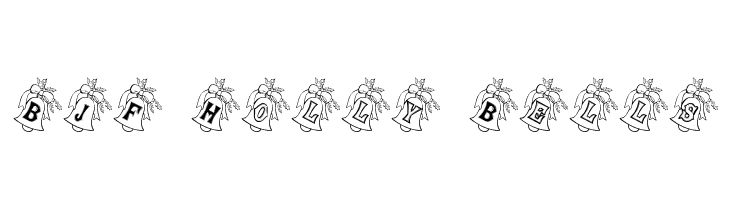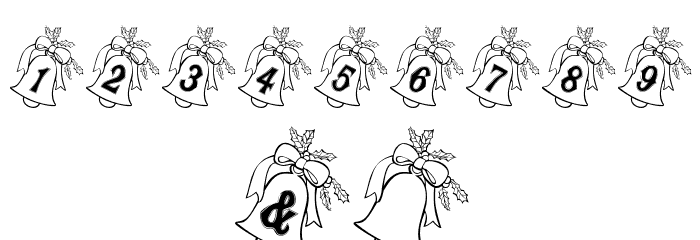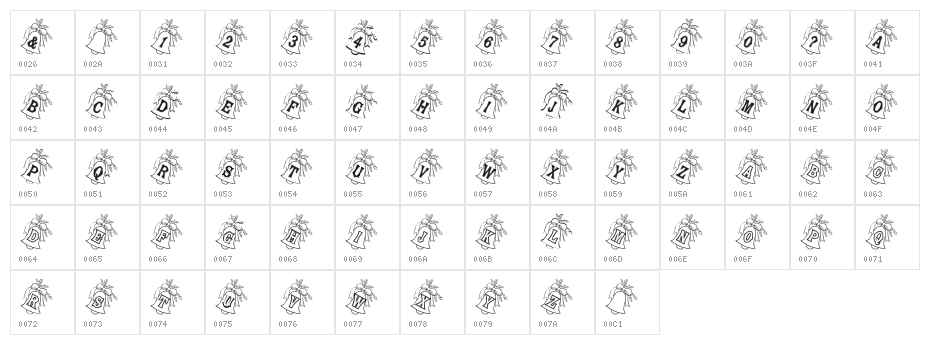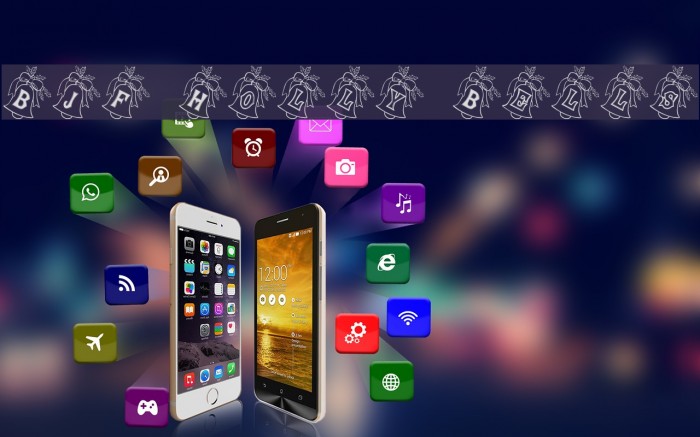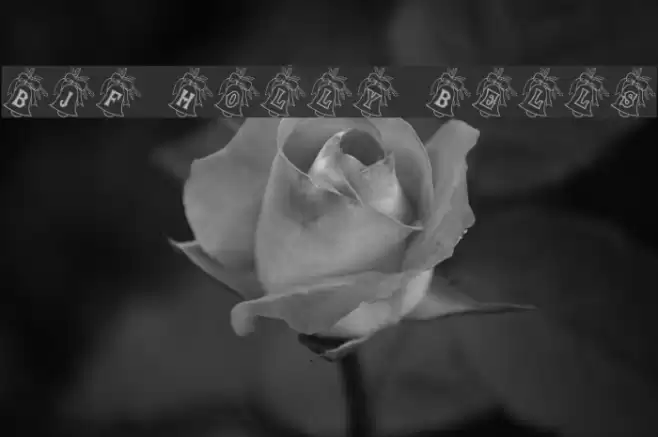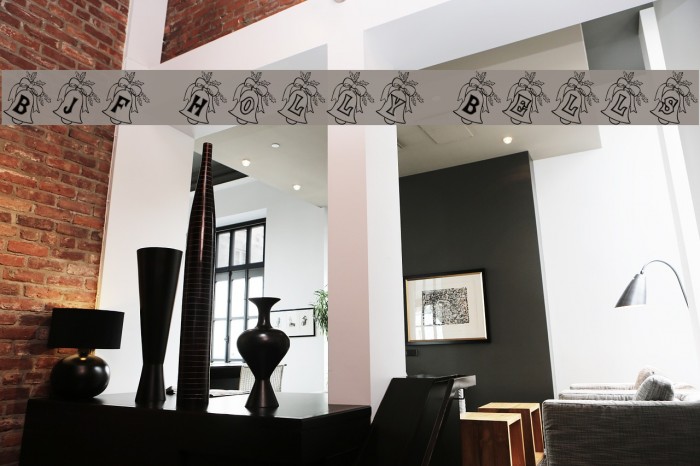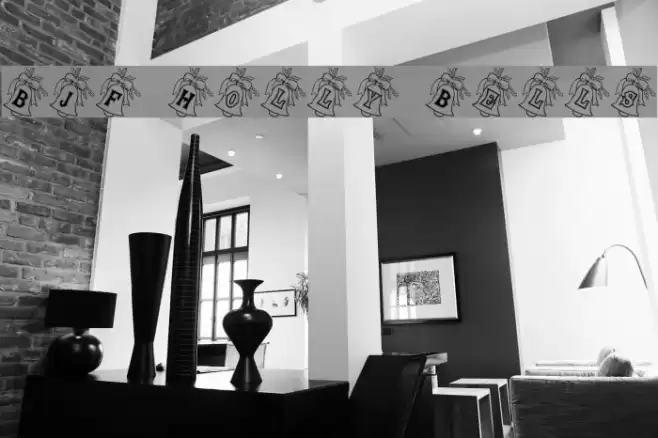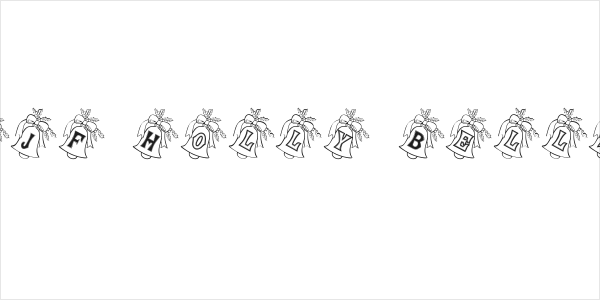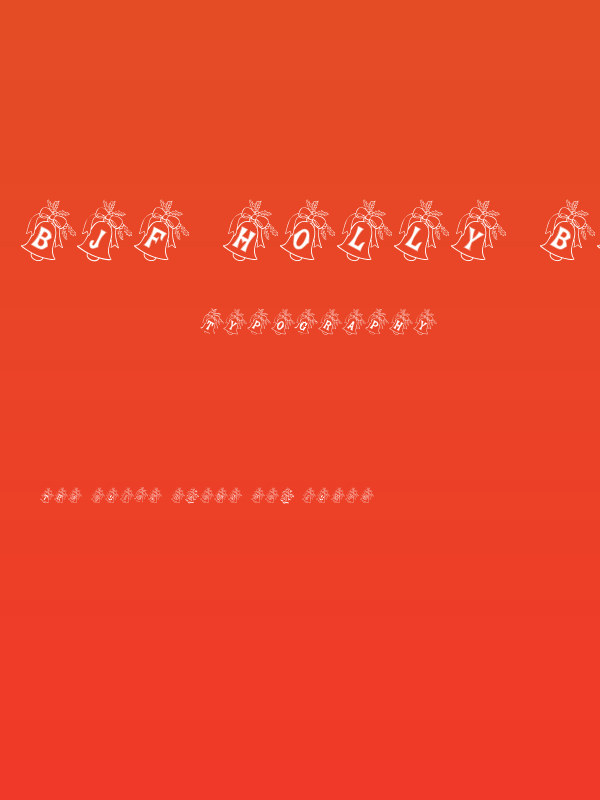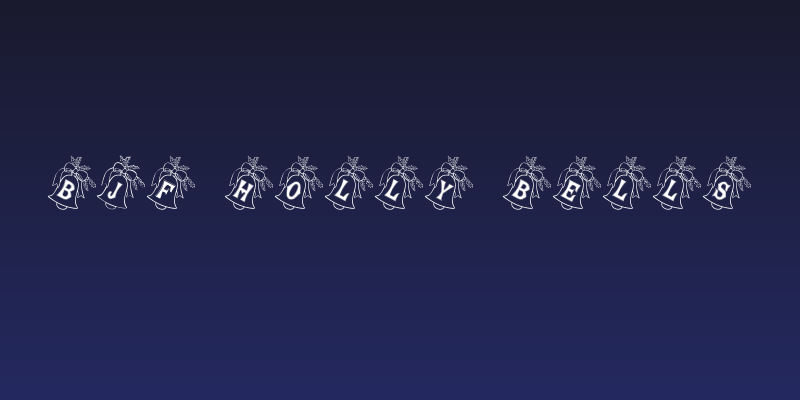
BJF Holly Bells Font
BJF Holly Bells Description
This decorative font features each character elegantly placed within a stylized bell adorned with holly leaves and berries, evoking a festive and celebratory atmosphere. The uppercase letters are bold and distinct, each nestled within the bell's silhouette, creating a harmonious blend of typography and illustration. The numbers follow the same design, ensuring consistency across all characters. The ampersand is particularly striking, maintaining the festive theme while offering a unique visual appeal. This font is perfect for holiday-themed projects, adding a touch of whimsy and charm to any design. The intricate details of the holly and bell elements enhance the overall aesthetic, making it ideal for creative and decorative uses.
| Use Case | Headlines, Logos, Decorative text |
| Proposed Projects | Ideal for holiday cards, festive invitations, seasonal branding, and decorative posters. |